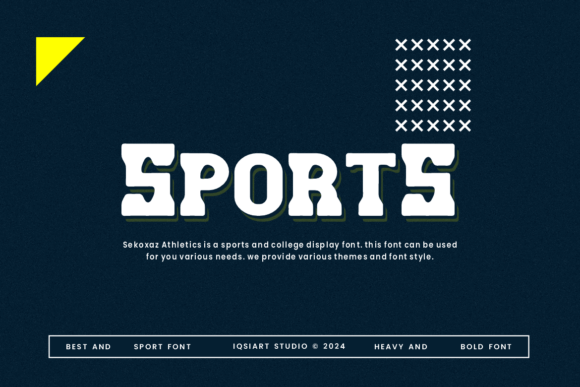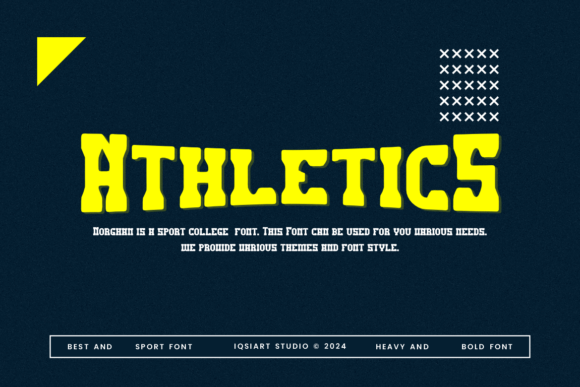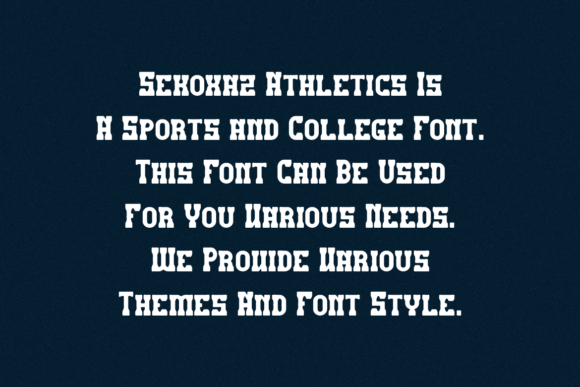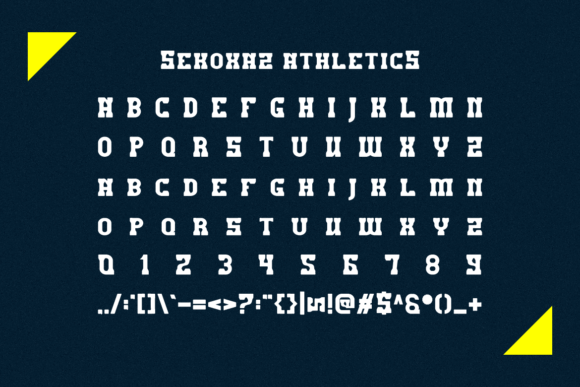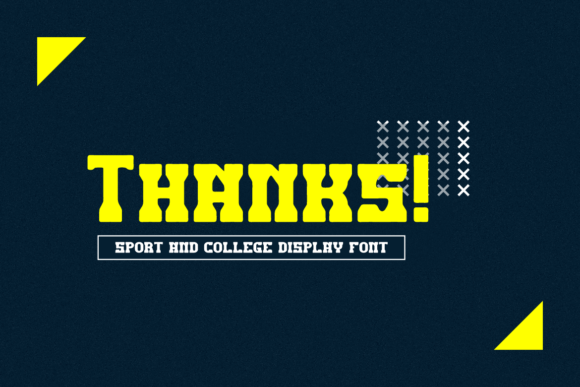
Introduction to Sekoxaz Athletics Font Font
Fonts play a crucial role in design, and the Sekoxaz Athletics Font font is a typeface that brings both character and versatility to any project. Whether you’re working on a branding project, a website, or a print design, the Sekoxaz Athletics Font font offers a unique style that can elevate your work.
| 📌 Font Name | Sekoxaz Athletics Font |
| 👤 Author | IqsiartStudio |
Sekoxaz Athletics is a strong and sporty font inspired by classic college designs.
Its bold letters give off a powerful and athletic feel, making it perfect for team logos, jerseys, and sports-themed projects .
Key Features of Sekoxaz Athletics Font Font
Why Choose Sekoxaz Athletics Font Font?
The Sekoxaz Athletics Font font is more than just a typeface – it’s a design tool that helps you communicate your message with style and clarity. Its unique character set and versatile design make it suitable for a wide range of applications, from elegant invitations to bold headlines.
With its carefully crafted letterforms and balanced proportions, the Sekoxaz Athletics Font font ensures readability and visual appeal across all mediums.
What makes Sekoxaz Athletics Font font special?
The Sekoxaz Athletics Font font stands out with its unique design, exceptional readability, and versatility across various design applications.